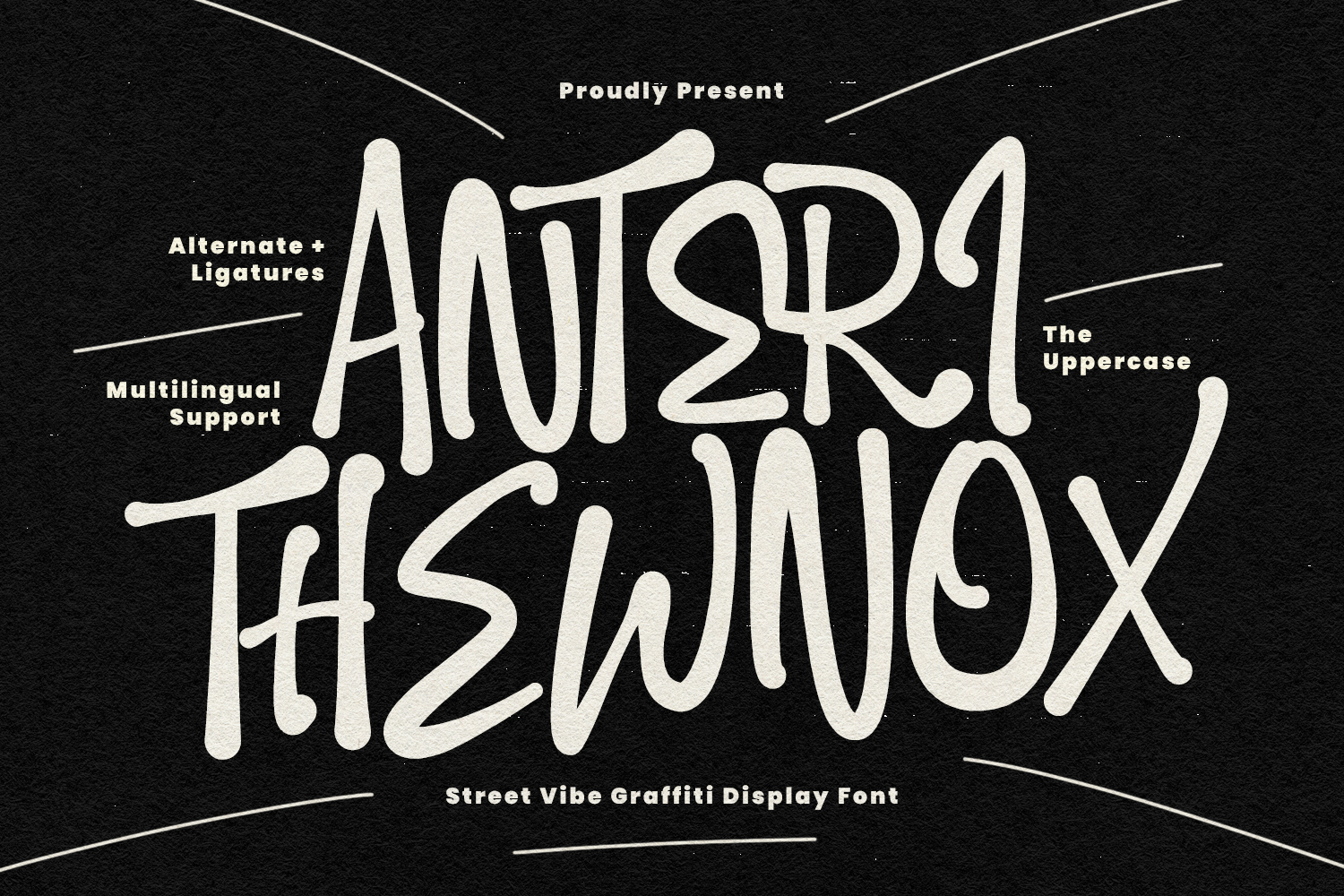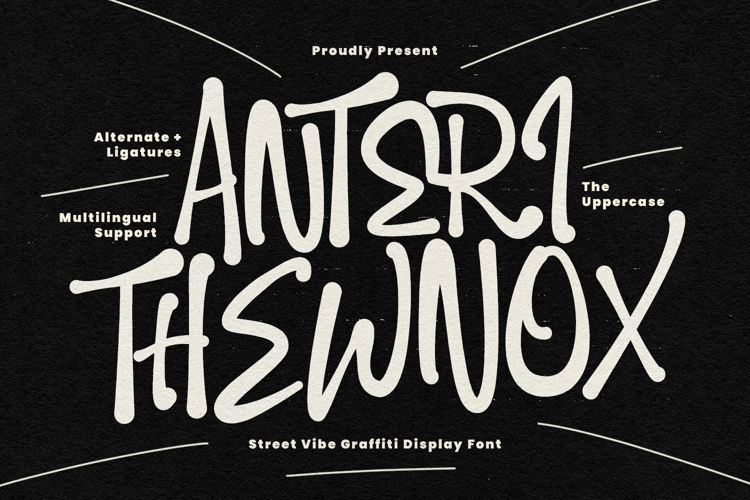
Anteri Thewnox Street Vibe Graffiti Display Font
Anteri Thewnox is a raw, high-energy display font that captures the authentic soul of underground street art. Designed with fluid, hand-drawn strokes and a rebellious "street vibe," this typeface mimics the natural flow of a spray can or felt tip marker. Featuring a complete set of all-caps characters, unique ligatures, and stylistic alternates, it allows for a truly custom, hand-tagged appearance. Whether you are designing edgy hip-hop concert posters, bold social media graphics, or urban-themed branding, Anteri Thewnox brings an unapologetic attitude and effortless cool to every project.
- Ligature and Alternates